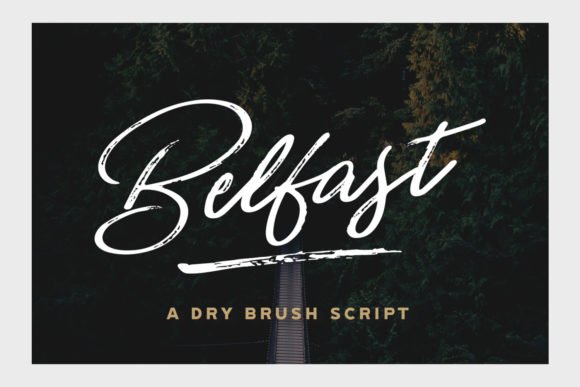
Introduction to Belfast Font
Belfast results out of a stunning pairing of a brush pen and pencil that makes it look incredibly endearing and authentic.
Use this gorgeous and unique script font to bring any DIY project to life .
Key Features of Belfast Font